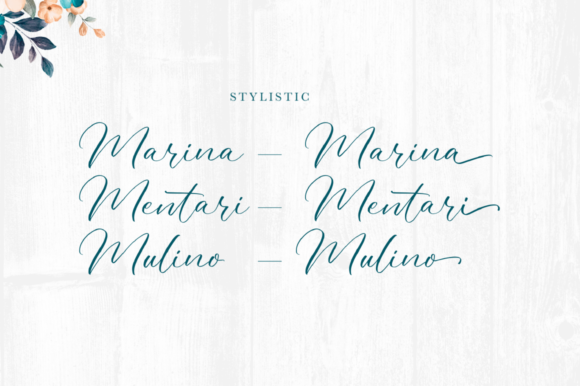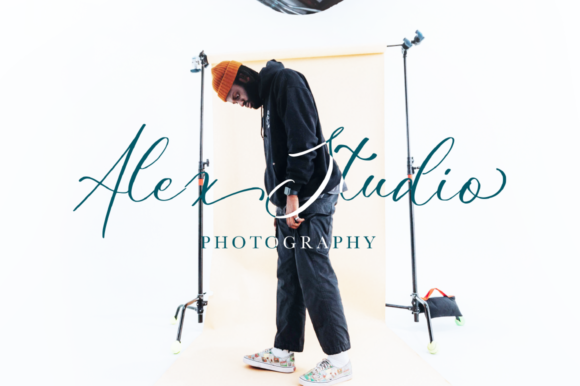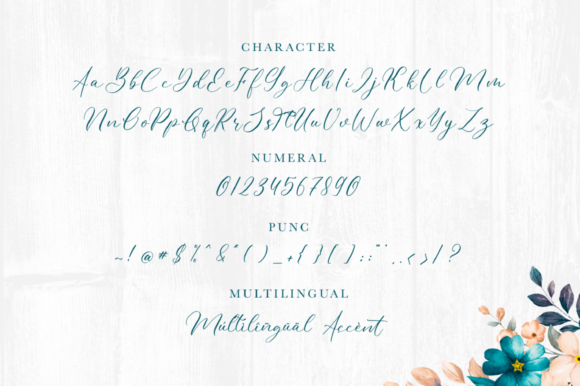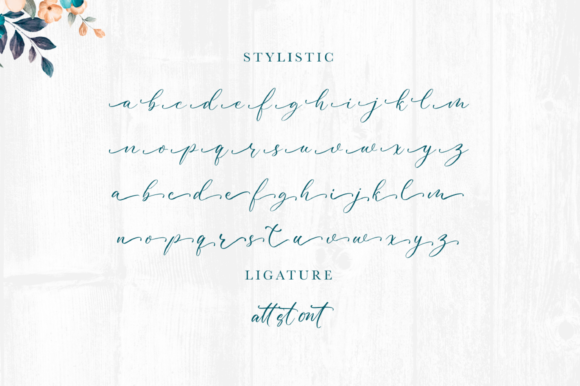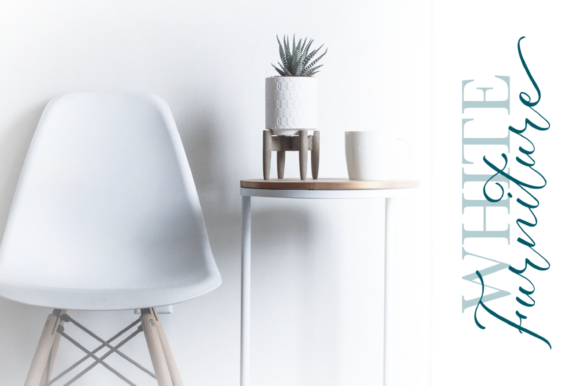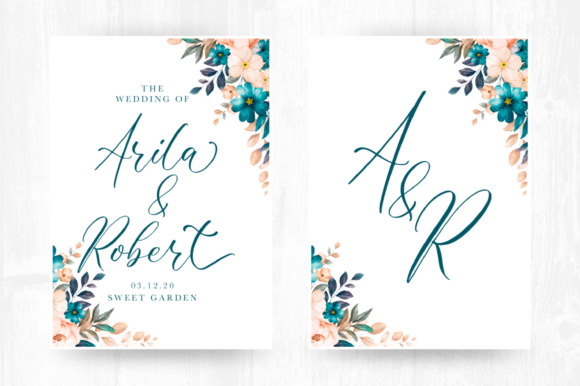
Flaurena Font: Elevate Your Designs with a Lovely and Timeless Handwritten Style
Are you searching for a font that can add a touch of elegance and sophistication to your designs? Look no further than the Flaurena Font. This beautiful, handwritten font is perfect for creating eye-catching logos, branding, and quotes that will leave a lasting impression on your audience. In this article, we’ll explore the features and benefits of the Flaurena Font, and why it’s a must-have for designers and crafters.
A Lovely and Timeless Handwritten Font
The Flaurena Font is a stunning example of a handwritten font that exudes warmth and personality. Its lovely and timeless design makes it perfect for a wide range of design projects, from logos and branding to quotes and social media graphics. The font’s unique character and flair will add a touch of sophistication to any design, making it stand out from the crowd.
Perfect for Creating Eye-Catching Logos and Branding
When it comes to creating logos and branding, the right font can make all the difference. The Flaurena Font is specifically designed to help you create eye-catching and memorable logos that will represent your brand with style. Its elegant and refined design makes it perfect for businesses and individuals who want to establish a strong visual identity.
One of the standout features of the Flaurena Font is its PUA (Private Use Area) encoding. This means that you can access all of the font’s glyphs and swashes with ease, giving you complete creative control over your designs. With the Flaurena Font, you can easily add flourishes and decorative elements to your text, making it truly unique and eye-catching.
Why Designers and Crafters Love the Flaurena Font
So, why do designers and crafters love the Flaurena Font? Here are just a few reasons:
- Unique and versatile design: The Flaurena Font is perfect for a wide range of design projects, from logos and branding to quotes and social media graphics.
- Elegant and refined: The font’s elegant and refined design makes it perfect for businesses and individuals who want to establish a strong visual identity.
- High-quality design: The font is designed with high-quality and attention to detail, ensuring that it will look great in any design.
How to Use the Flaurena Font in Your Designs
Using the Flaurena Font in your designs is easy. Here are a few tips to get you started:
- Use it for logos and branding: The Flaurena Font is perfect for creating eye-catching logos and branding that will represent your business or personal brand.
- Add it to your quotes and social media graphics: The font’s elegant and refined design makes it perfect for adding a touch of sophistication to your quotes and social media graphics.
In conclusion, the Flaurena Font is a lovely and timeless handwritten font that is perfect for designers and crafters who want to add a touch of elegance and sophistication to their designs. With its PUA encoding and high-quality design, it’s easy to use and versatile enough for a wide range of design projects. Whether you’re creating logos and branding, quotes, or social media graphics, the Flaurena Font is a must-have font that will elevate your designs to the next level.